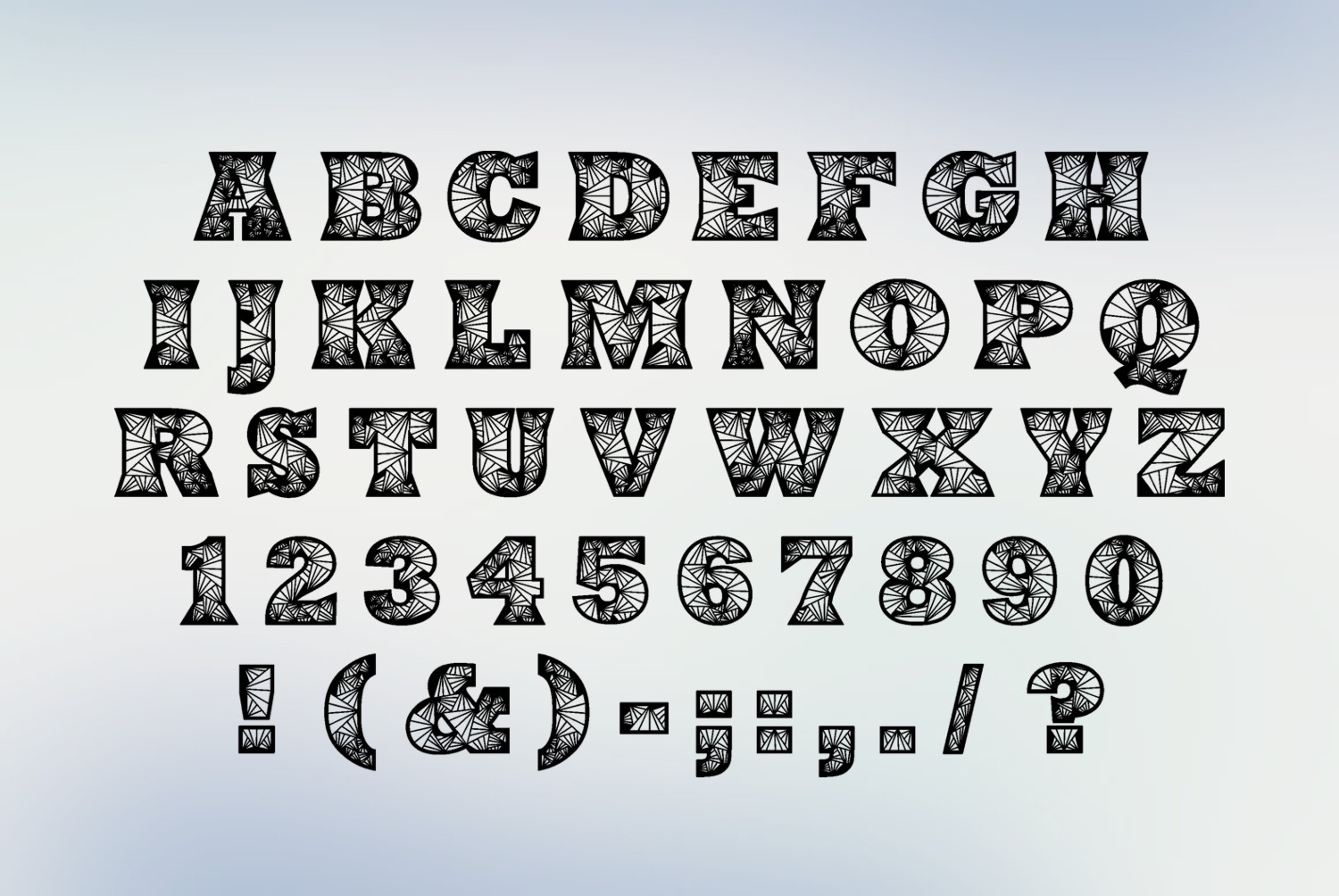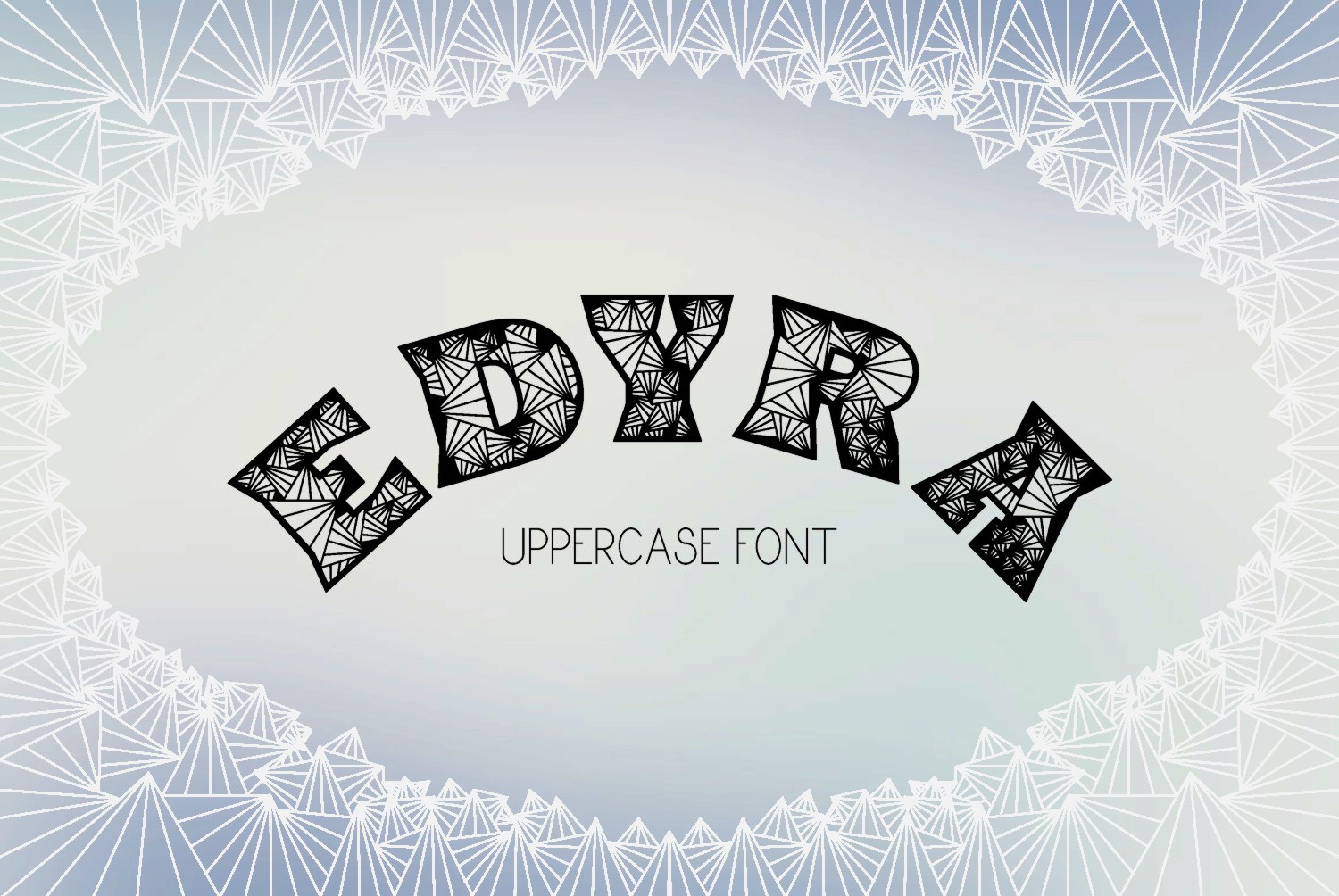
The Edyra Font: A Bold and Beautiful Addition to Your Design Arsenal
I’ll never forget the time I was working on a project for a client who wanted a bold, eye-catching font to make their brand stand out. I had spent hours scouring the internet for the perfect font, but nothing seemed quite right. That was when I stumbled upon the Edyra font. With its remarkable embellishments and details, it was love at first sight! In this article, I’ll share my experience with the Edyra font, its features, and how to make the most of it in your designs.
An Honest Review of Edyra Font
What I Love About Edyra Font
- ✨ Unique and bold design: Edyra font is perfect for designers who want to make a statement.
- ✅ Highly versatile: It can be used for a wide range of projects, from logos and branding to posters and social media graphics.
- 💫 Beautiful embellishments: The font’s intricate details and ornamentation make it truly stand out.
- 🎉 Dynamic and fun: Edyra font is sure to add a touch of personality to any design.
While Edyra font is an amazing addition to any design collection, there are a few things to keep in mind:
- 🤔 Legibility at small sizes: Due to its bold and ornate design, Edyra font may not be the best choice for body text or small font sizes.
- ⚠️ Overuse: As with any bold font, be careful not to overuse Edyra font, as it can quickly become overwhelming.
The Backstory of Edyra Font
While the true story behind Edyra font may be unknown, it’s easy to imagine that it was created by a designer who wanted to push the boundaries of traditional typography. Perhaps they were inspired by the intricate details and ornamentation of ancient manuscripts, or the bold and playful typography of street art. Whatever the inspiration, Edyra font is a true masterpiece that deserves to be celebrated.
Q: What type of projects is Edyra font best suited for?
A: Edyra font is perfect for bold and eye-catching designs, such as logos, branding, posters, and social media graphics.
Q: Can I use Edyra font for body text?
A: While Edyra font is beautiful, it may not be the best choice for body text due to its bold and ornate design. It’s better suited for headlines and titles.
Q: Is Edyra font available in different weights and styles?
A: Yes, Edyra font comes in a range of weights and styles, making it versatile and flexible for different design applications.